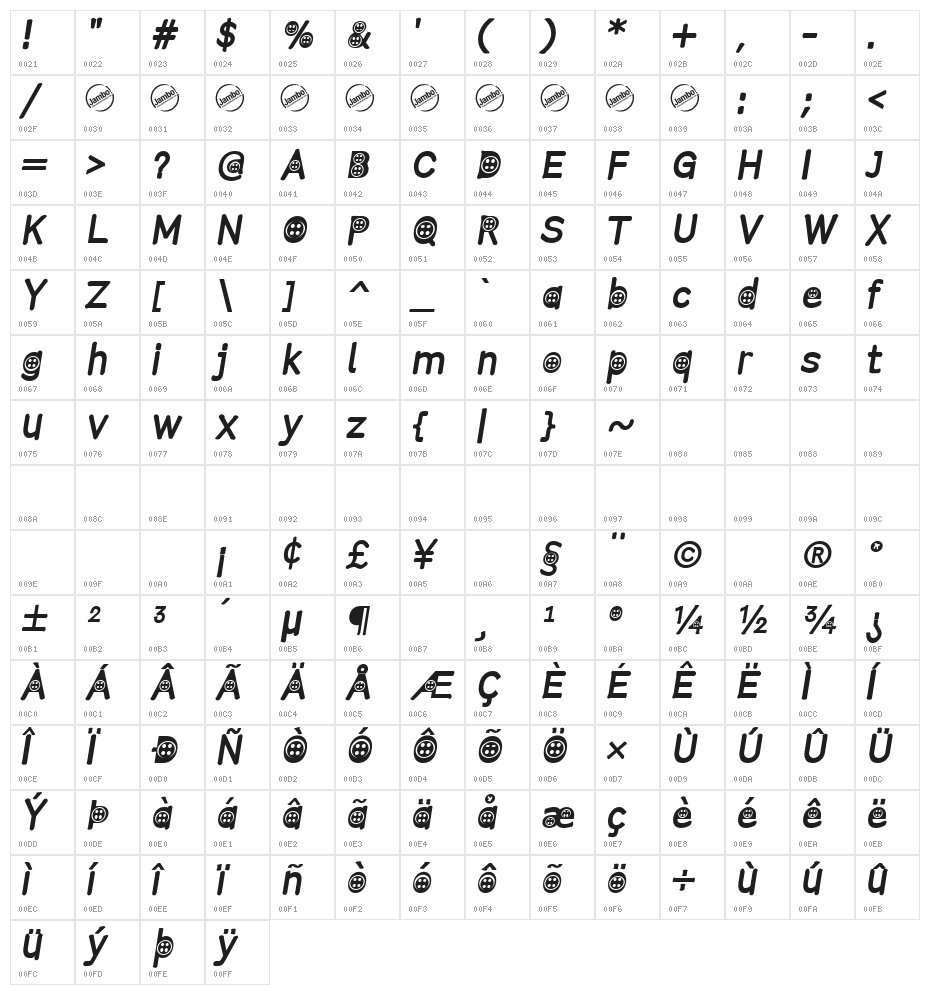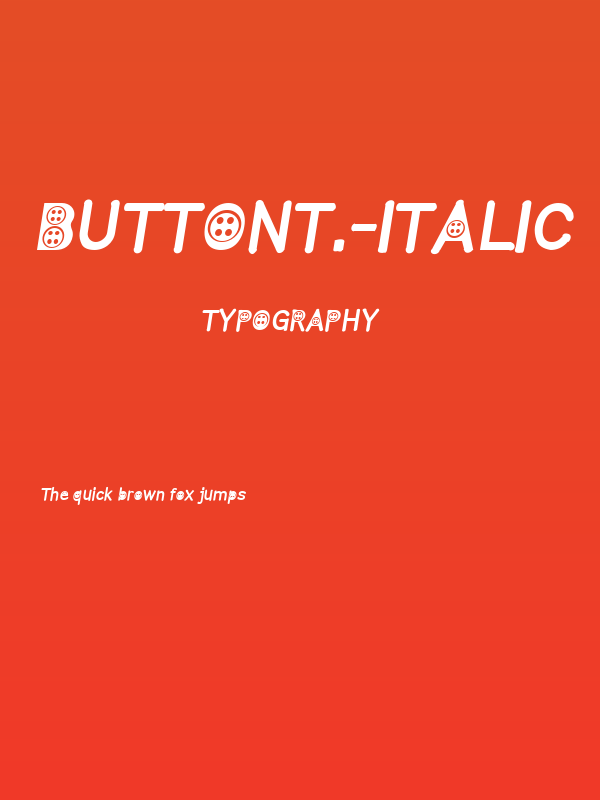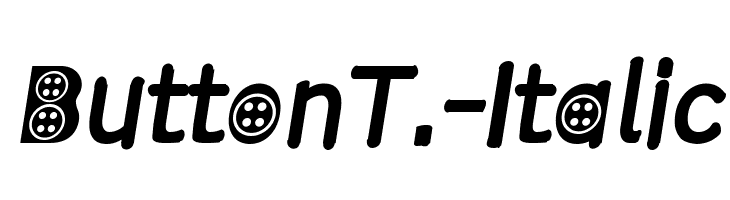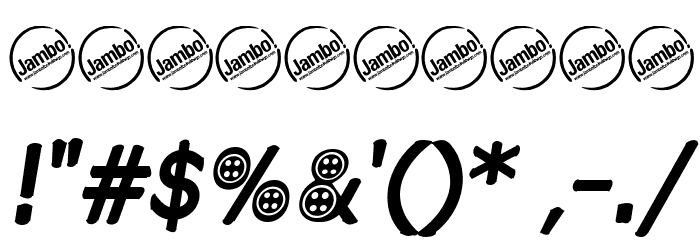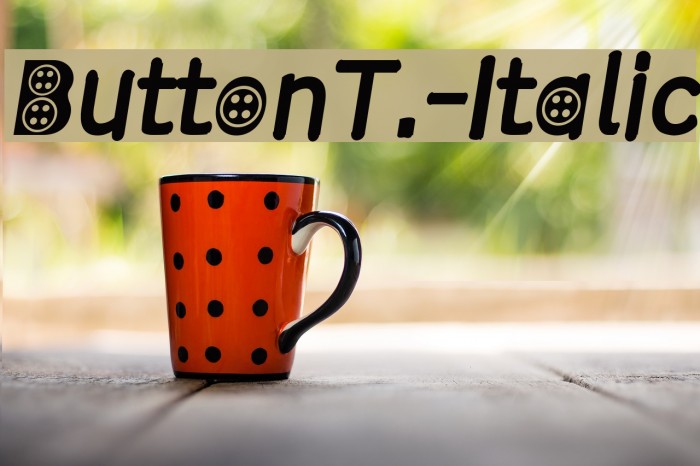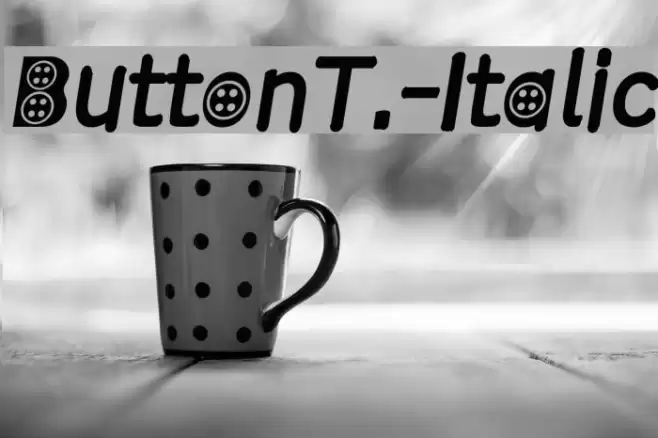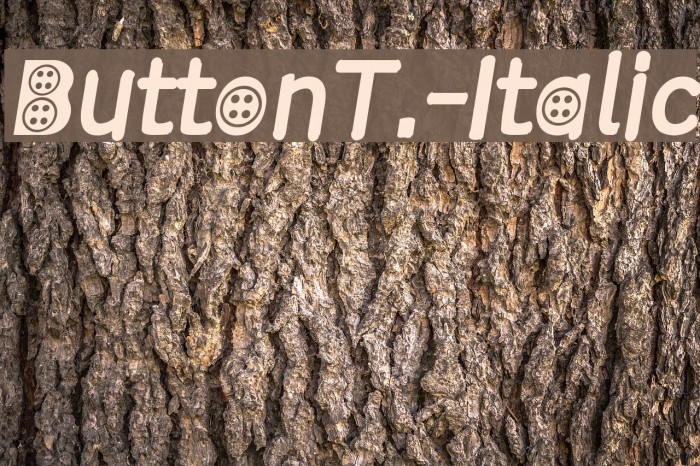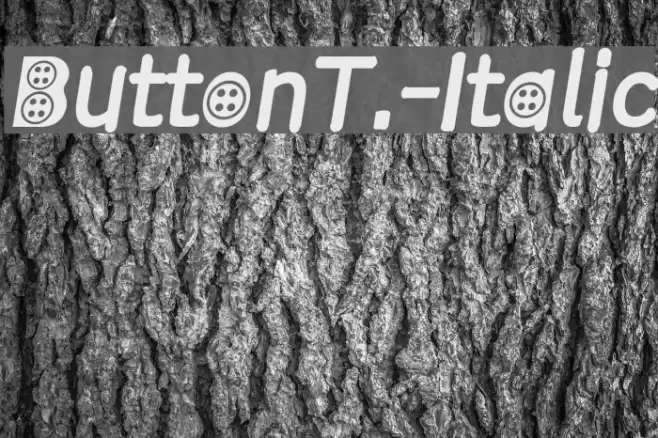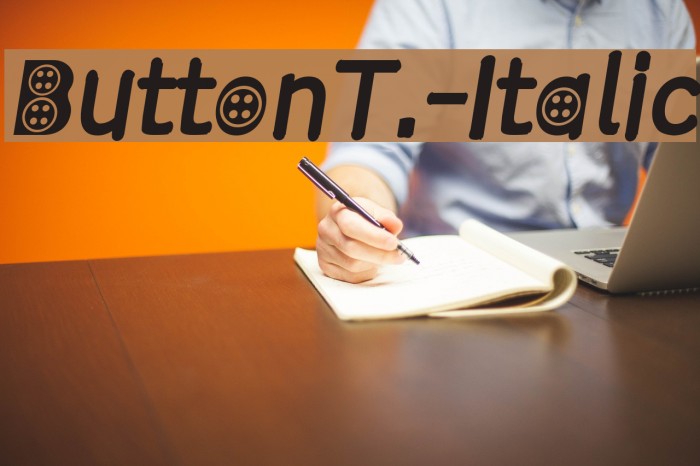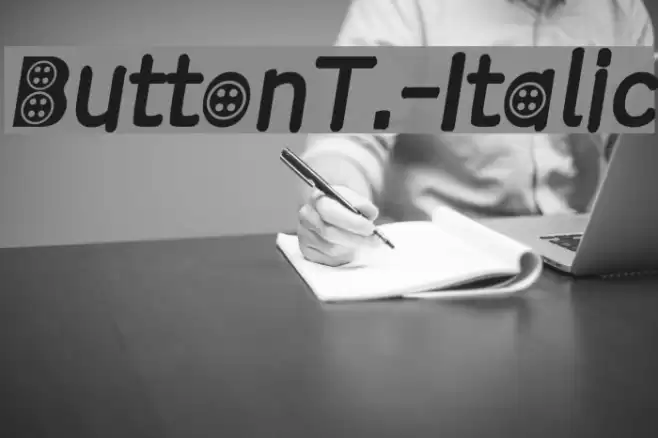
ButtonT.-Italic Font
Måns Grebäck
| Progetti proposti | Ideal for children's books, playful branding, creative posters, and any project needing a whimsical touch. |